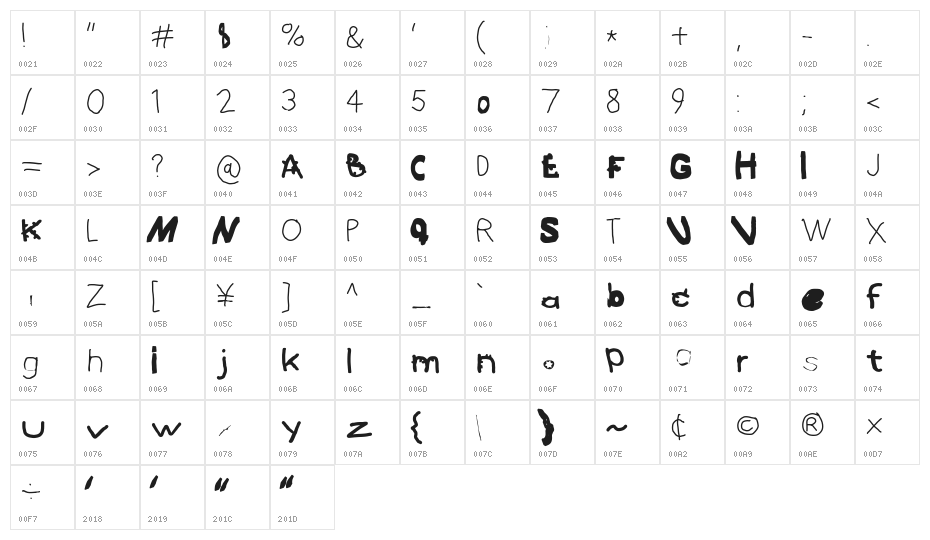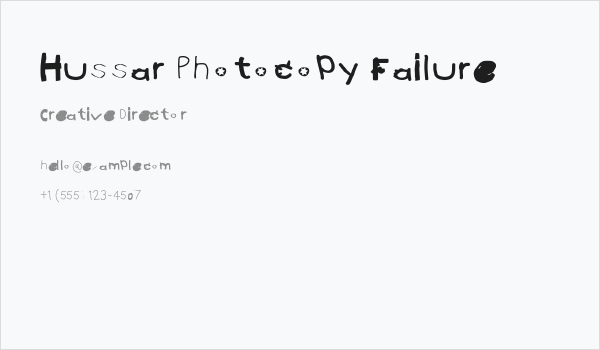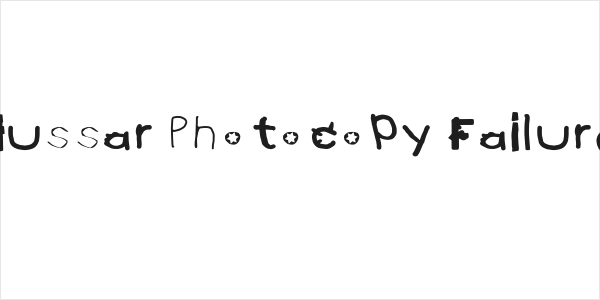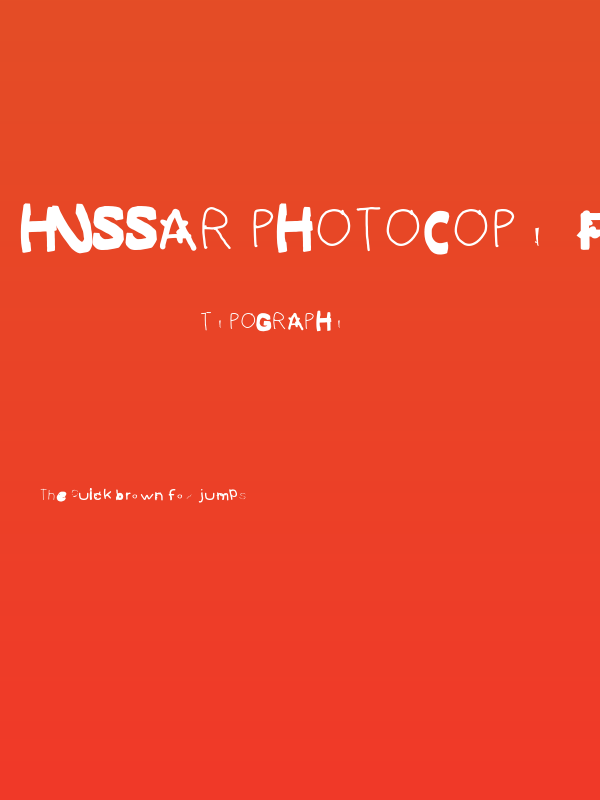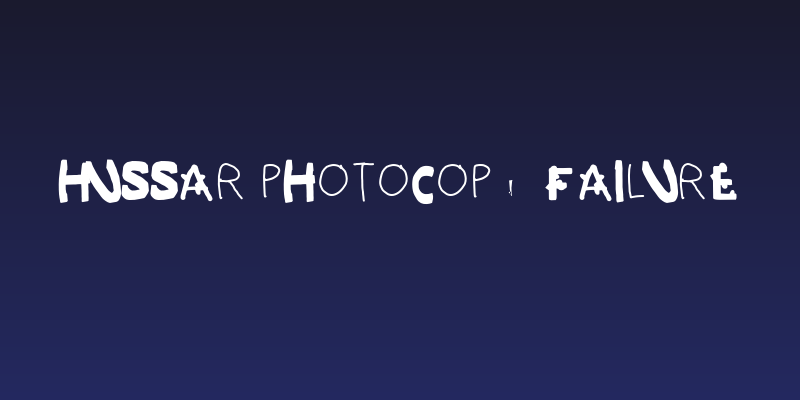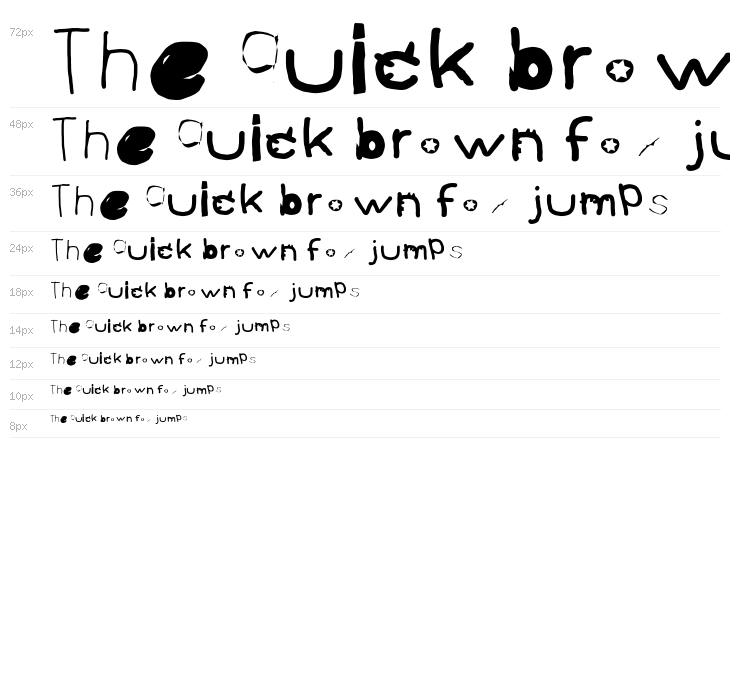
Hussar Photocopy Failure Font
Hussar Photocopy Failure Description
This font exudes a unique, distressed aesthetic reminiscent of a photocopy error, where each character appears to have been imperfectly transferred. The letters are irregular and varied in weight, giving them a hand-drawn, organic feel. Some characters are bold and thick, while others are thin and fragmented, creating a dynamic and unpredictable visual rhythm. This font captures a sense of chaos and spontaneity, making it ideal for projects that require an edgy, unconventional look. Its uneven baseline and varied stroke widths add to its quirky charm, making it stand out in any design.
Overall StyleEdgy, Distressed, Hand-drawn
Use CaseHeadlines, Artistic projects, Posters
Proposed ProjectsIdeal for album covers, zines, street art-inspired designs, and any project seeking a raw, edgy vibe.